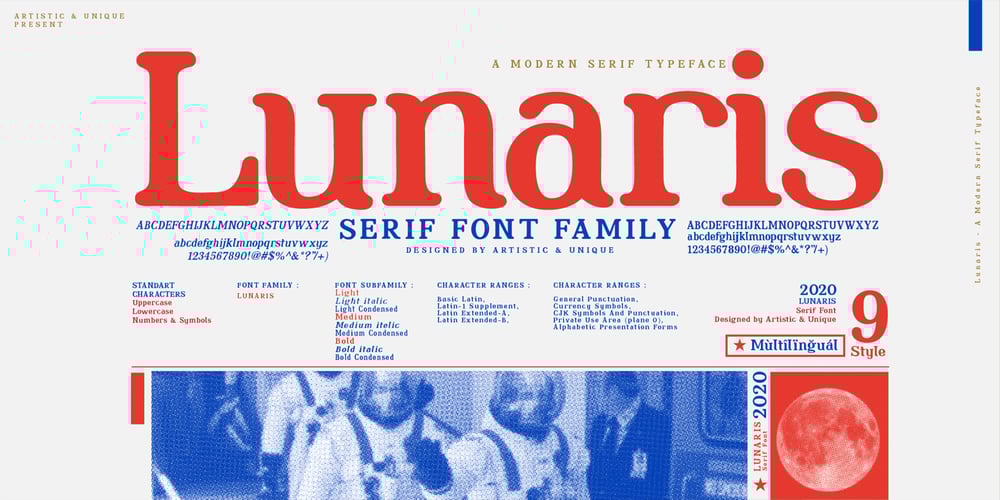
Lunaris Font Family was designed by Osman Taner Kucukgenc and published by Artisticandunique. Lunaris contains 9 styles and family package options. The Lunaris font family has an elegant character with soft curved turns and includes 9 styles.If you want to try a modern or classic, elegant appearance, it can meet all your needs with its timeless structure that is ideal for your projects with capital and small letters. Lunaris is a versatile serif with a luxurious feel.You can easily use Lunaris in magazines, books, titles, websites, logos, clothing, invitations, branding, packaging, advertising, and more.CHARACTER RANGES : Basic Latin, Latin-1 Supplement, Latin Extended-A, Latin Extended-B, General Punctuation, Currency Symbols, CJK Symbols And Punctuation, Private Use Area (plane 0),